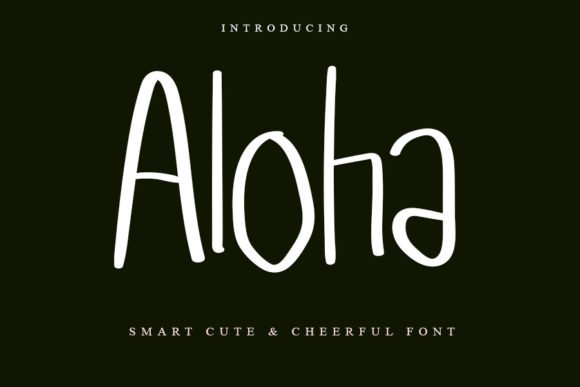
The Perfect Blend of Style and Readability: Introducing Aloha Font
Have you ever been browsing through a magazine and stopped at a title that caught your eye? Maybe it was the way the words danced across the page, or the way the font seemed to whisper a warm welcome. That’s the magic of a well-designed font, and Aloha Font is no exception. This simple, clear, and well-spaced handwritten font is the perfect choice for any project that needs to convey a sense of approachability and style.
As a designer, you know how hard it can be to find a font that’s both visually appealing and easy to read. That’s where Aloha Font comes in – its incredibly neat style makes it the perfect choice for magazine titles, name tags, labels, and anything else that needs to be easily readable. Whether you’re working on a branding project or just need a font to add some personality to your next design, Aloha Font is a valuable addition to your toolkit.
Aloha Font Key Features
• Font Style: Aloha Font is a beautiful, modern sans-serif font with a friendly and approachable feel, making it perfect for use in headings and body text.
• Unique Characteristics: The Aloha Font features a unique, hand-drawn feel, with subtle imperfections and variations that give it a personal and friendly touch.
Aloha Font Review
Overall, I was excited to dive into the Aloha Font, but my experience was a mix of highs and lows. Here’s what worked well:
• ✨ The font’s tropical vibe is perfect for any project that needs a relaxed, beachy feel. It’s a great choice for branding, packaging, or even website design.
• ✨ The font is highly customizable, with plenty of options for adjusting the weight, spacing, and even the swashes. This level of control is a big plus for designers.
• ✨ The font is well-suited for both digital and print projects, making it a versatile choice for designers.
• ⚠️ The font’s bold and italic styles can be a bit inconsistent, which may affect the overall look of your design. Be prepared to tweak the settings to get the look you want.
Overall, the Aloha Font is a solid choice for designers who need a relaxed, beachy vibe. While it has some limitations, the font’s versatility and customization options make it a great addition to any design toolkit.
Getting the Most Out of the Aloha Font
For the best results, use the Aloha Font in conjunction with bright, tropical colors and bold graphics.
Use the Aloha Font to add a touch of whimsy and fun to your designs.
The Aloha Font is perfect for:
Beach-themed designs, such as invitations, posters, and social media graphics.
Summer-themed designs, such as party invitations, menus, and flyers.
Travel-themed designs, such as brochures, maps, and itineraries.